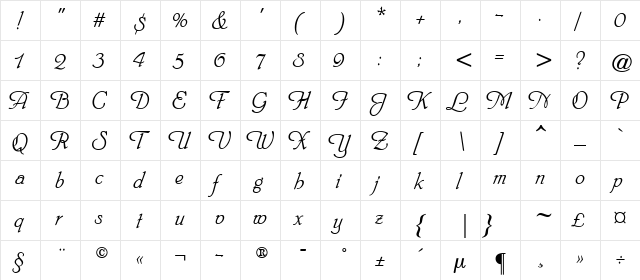
HeinrichScript Regular
Design Context for HeinrichScript Typeface
HeinrichScript brings a calligraphic fluidity to the page — its connecting strokes and expressive curves give it an unmistakably human quality.
Font Pairing: Combine HeinrichScript with a simple geometric sans for maximum contrast — the tension between flowing curves and clean structure is a classic typographic pairing.
Pro Tip: Use HeinrichScript for short runs of text — names, titles, or taglines. Extended body copy in script faces tires the eye quickly.